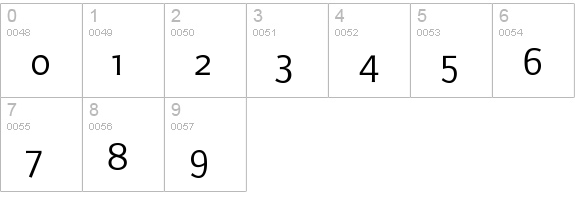
QuaySansEF-BookSC Font Details
QuaySansEF-BookSC font is an exquisite typeface that effortlessly blends elegance with modernity. This versatile font is perfect for a variety of design projects, whether it be branding, print materials, or digital applications. With its clean and crisp lines, QuaySansEF-BookSC exudes a sense of sophistication and professionalism. One of the standout features of this font is its readability. The carefully crafted letterforms ensure that every character is easily legible, making it ideal for both large and small sizes. Its balanced proportions and refined curves add a touch of refinement to any design. What sets QuaySansEF-BookSC font apart is not only its aesthetic appeal but also its accessibility. This font is freely available to download at FontsMarket.com, making it a valuable resource for designers and creatives alike. Whether you are a student, professional, or hobbyist, you can enhance your projects with this incredible font at no cost. QuaySansEF-BookSC font is suitable for a wide range of design applications. Its versatility allows it to seamlessly adapt to various styles and themes, making it a go-to choice for designers seeking a font that can effortlessly elevate their creations. Whether you are designing a magazine layout, a website, or a logo, this font will undoubtedly add a touch of class and sophistication. In conclusion, QuaySansEF-BookSC font is a visually stunning typeface that combines elegance and modernity. Its readability, accessibility, and versatility make it a valuable asset for any designer. Download this font for free at FontsMarket.com and unlock a world of design possibilities.